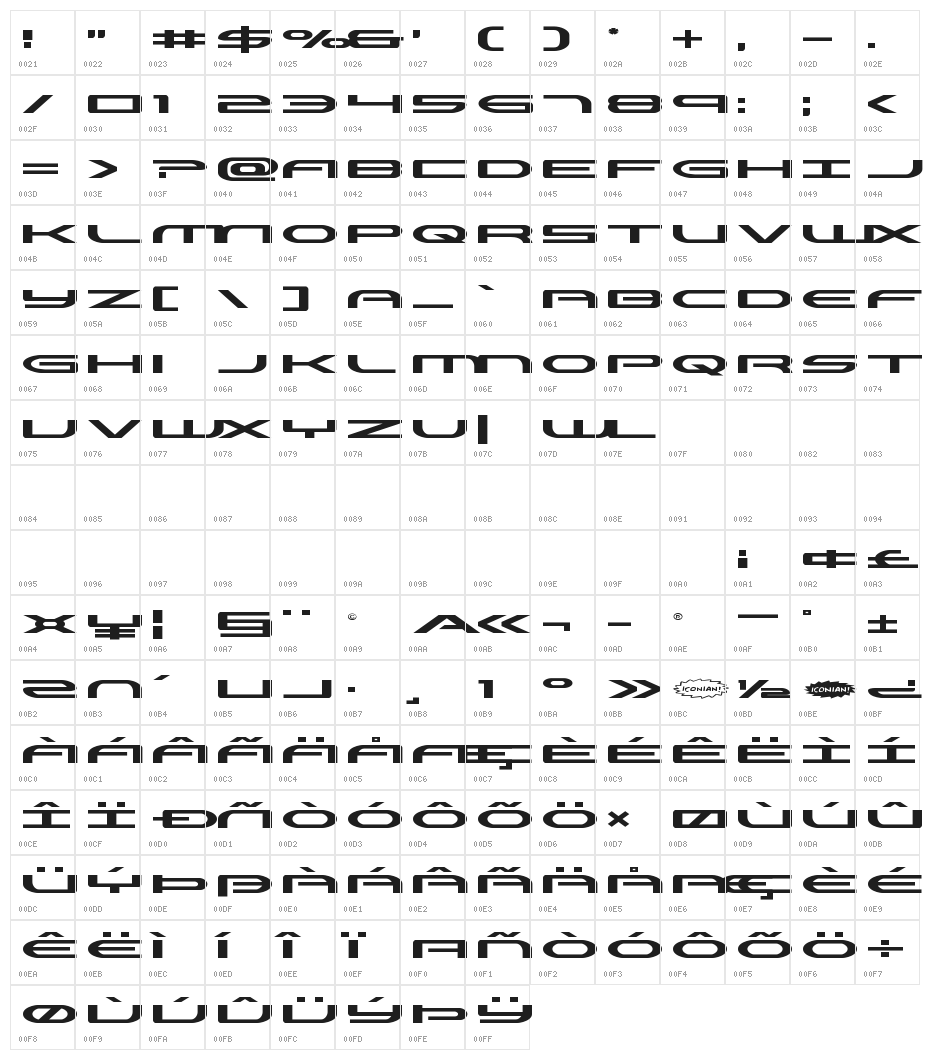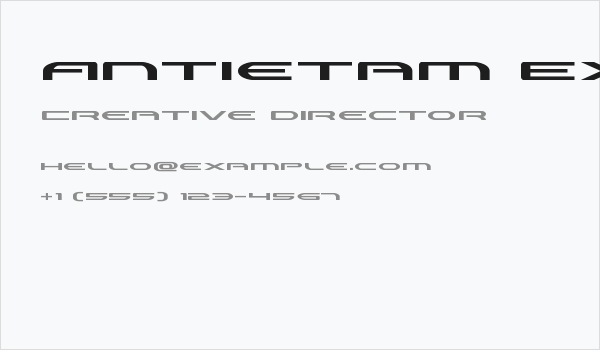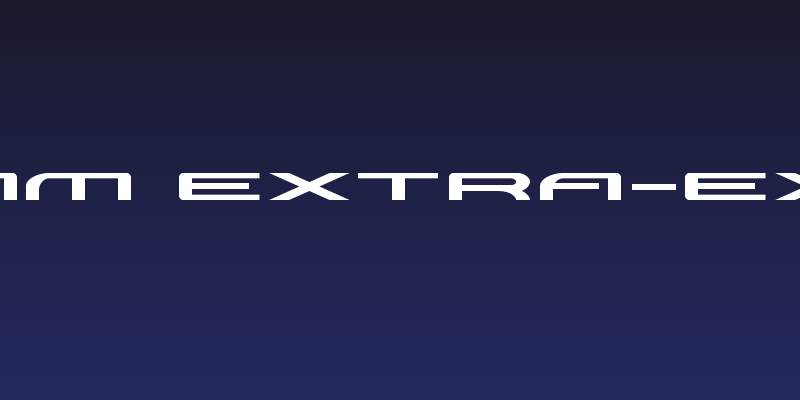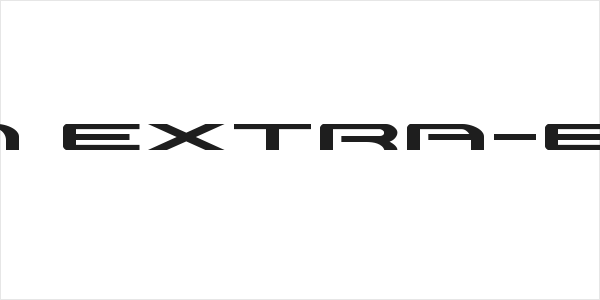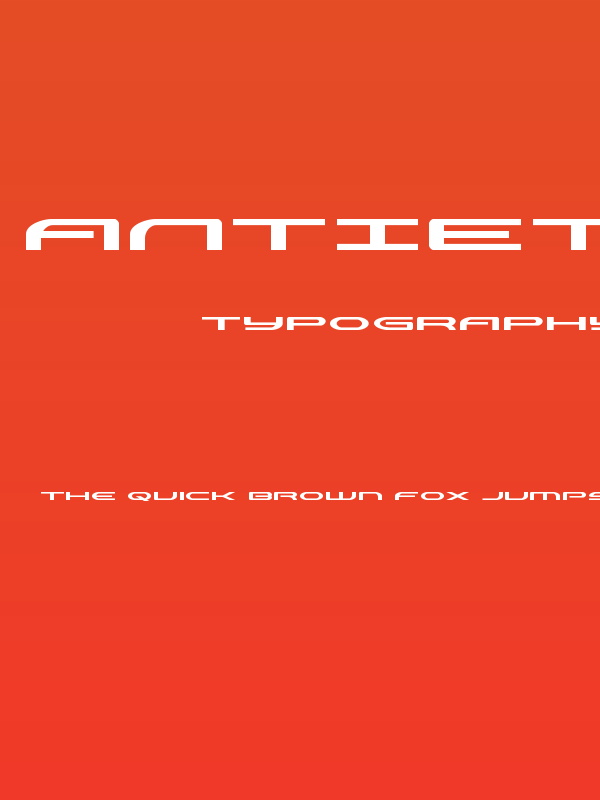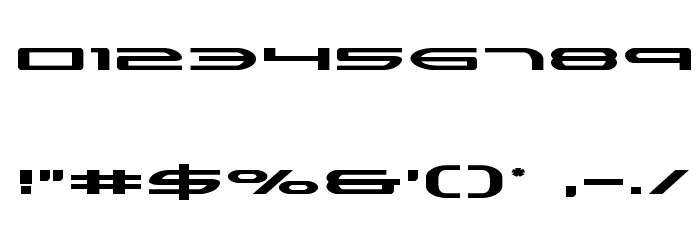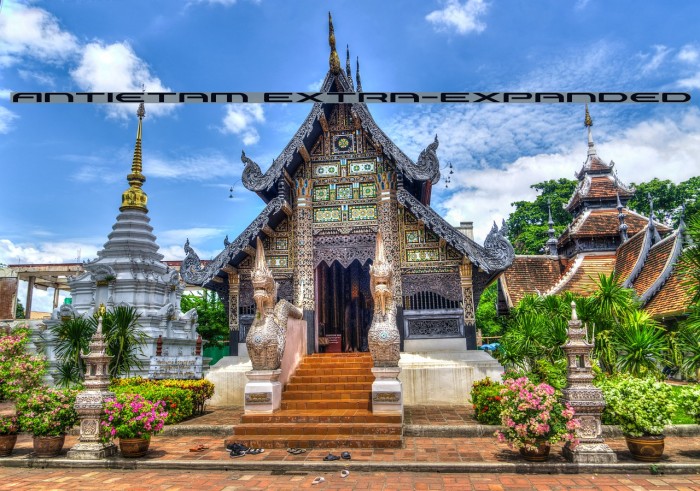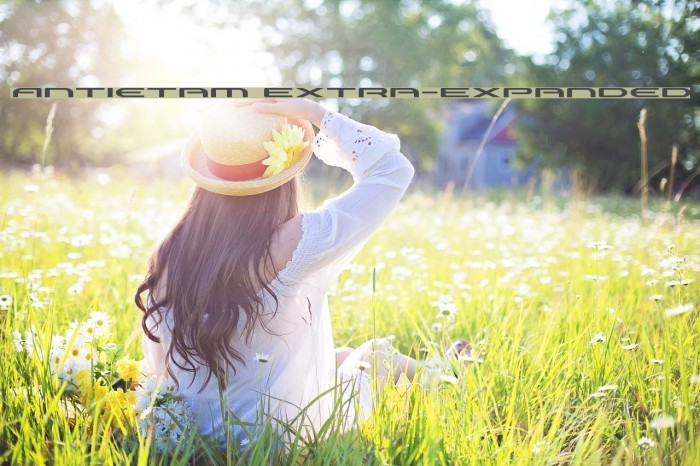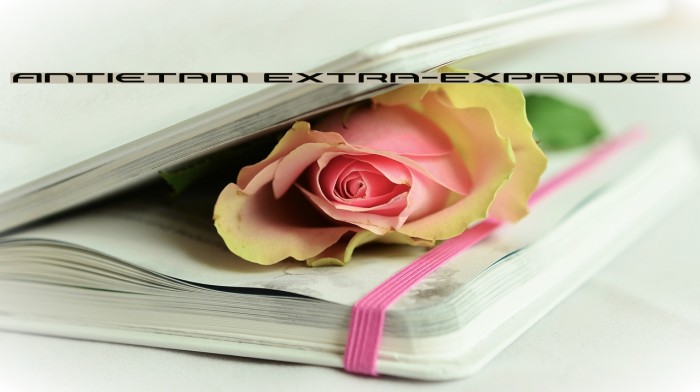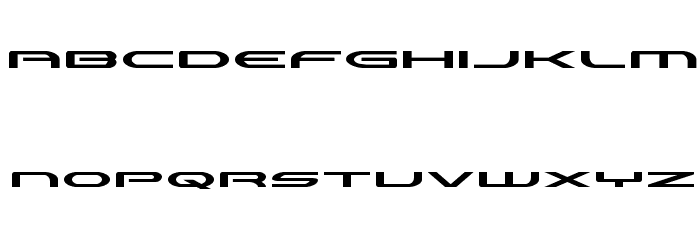
Antietam Extra-Expanded Font
Antietam Extra-Expanded Description
This font features a futuristic and sleek design with a distinctly modern aesthetic. The characters are elongated and expanded, giving them a unique and airy appearance. The strokes are consistent in width, providing a uniform look across all characters. The font has a geometric influence, with sharp angles and clean lines that enhance its contemporary feel. It is highly legible, making it suitable for various design applications where a modern and stylish look is desired. The spacing between characters is balanced, ensuring readability while maintaining its distinctive style.
| Proposed Projects | Ideal for technology branding, sci-fi themed projects, modern posters, and innovative product packaging. |